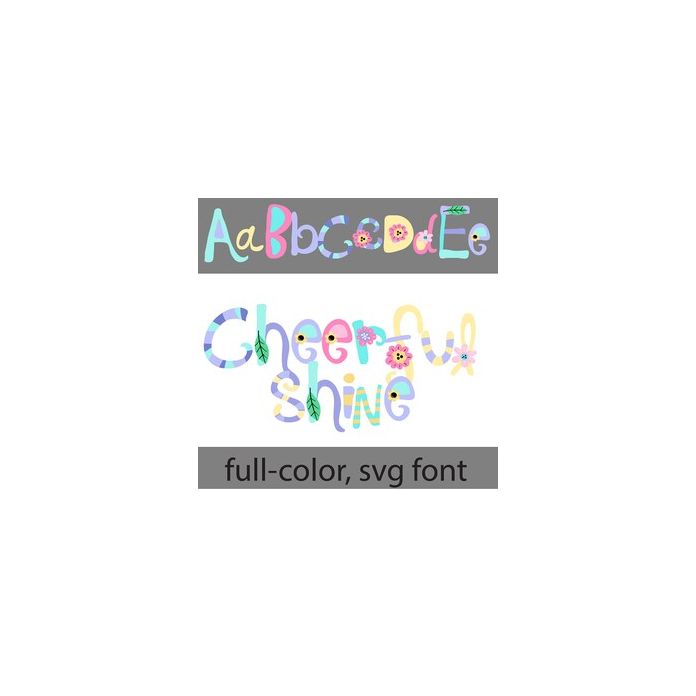
This full-color font features whimsical lettering with pastel color fonts. There is an alt case w/ additional colors you can access through your system or Silhouette's glyph map.